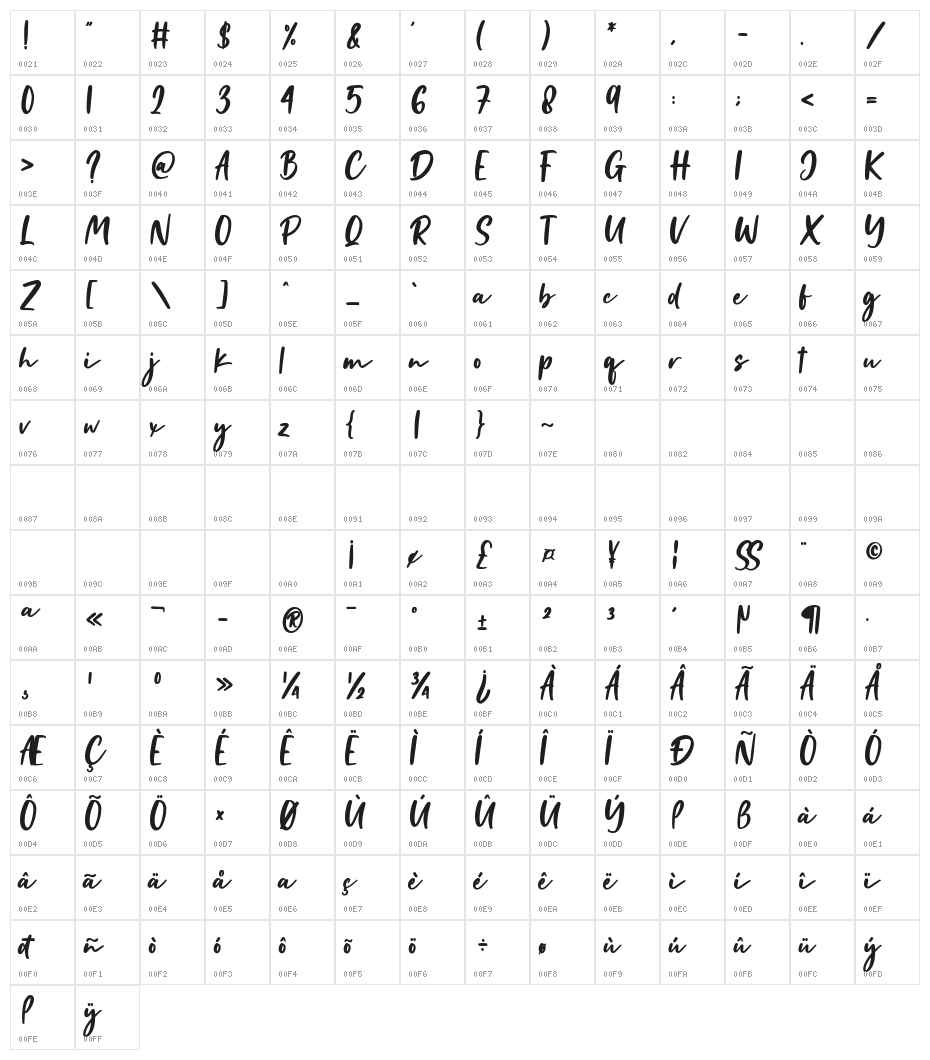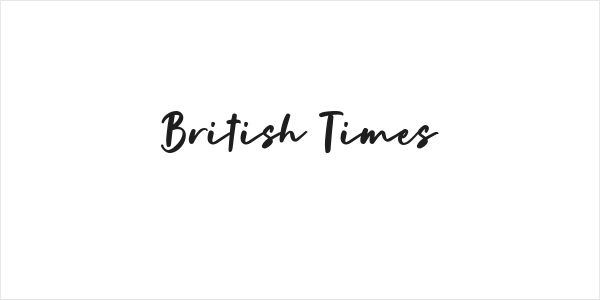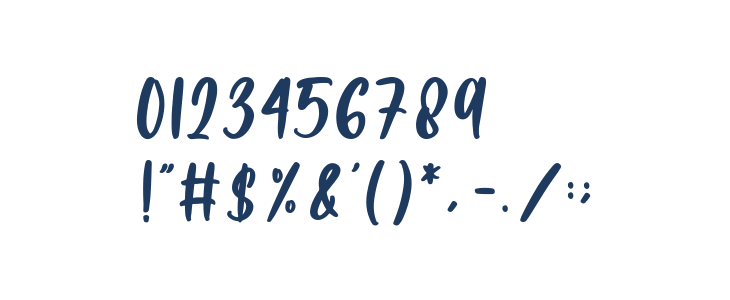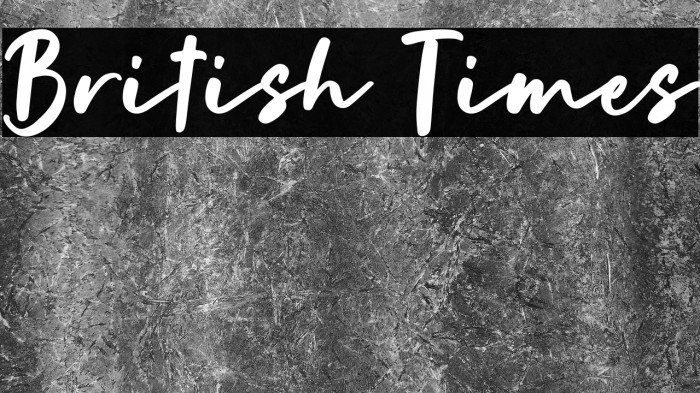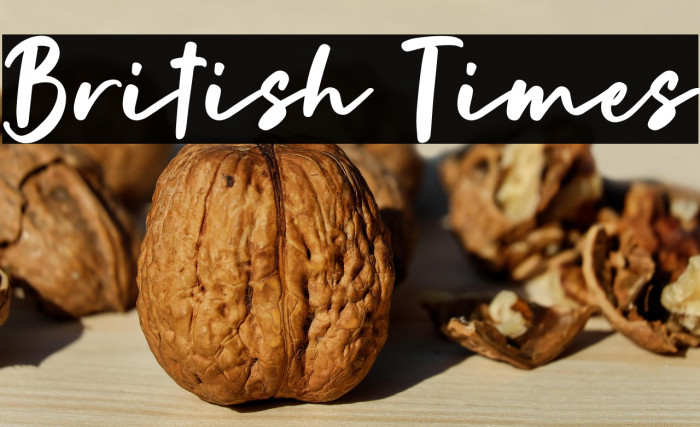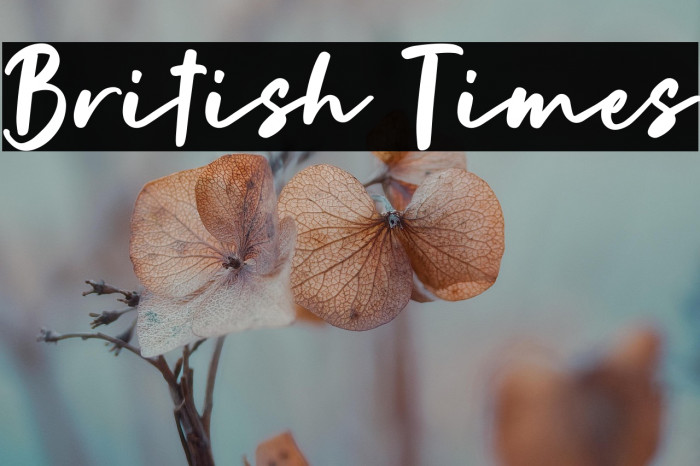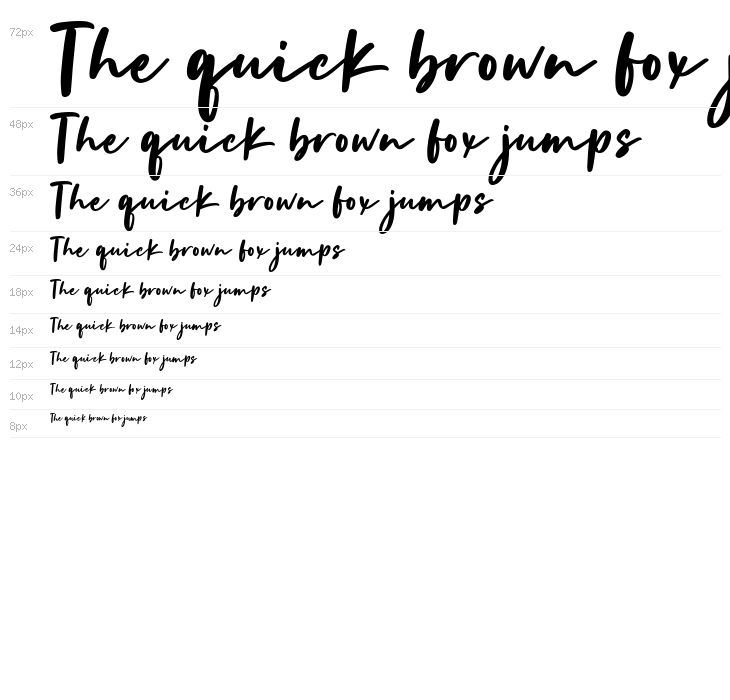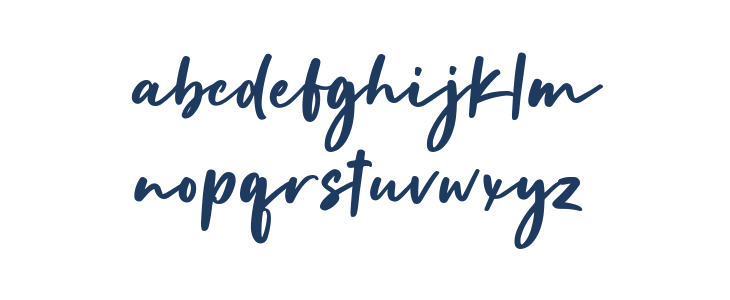
British Times Font
This font features a bold and expressive handwritten style, characterized by its fluid and dynamic strokes. The uppercase letters are slightly slanted, adding a sense of movement and energy, while the lowercase letters maintain a consistent flow with a touch of elegance. The numbers are bold and clear, ensuring readability. Special characters are creatively designed, enhancing the font's playful and artistic appeal. Overall, this font exudes a modern and casual vibe, making it suitable for a variety of creative projects.